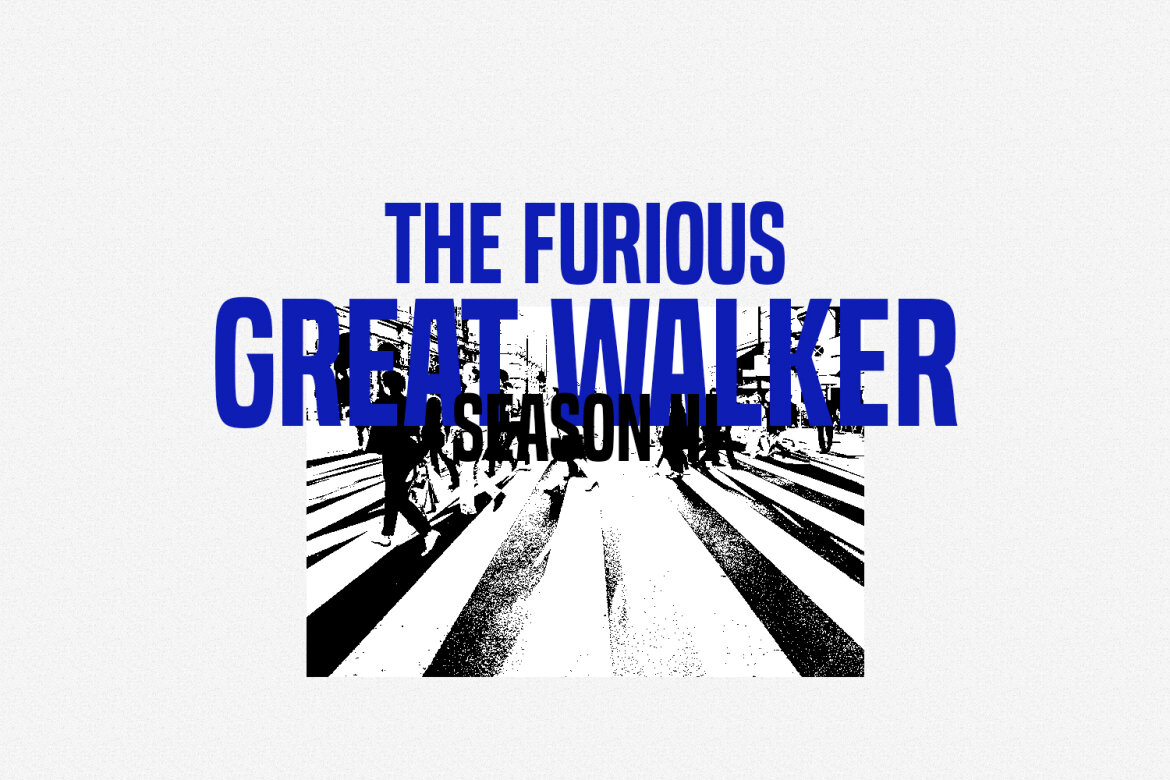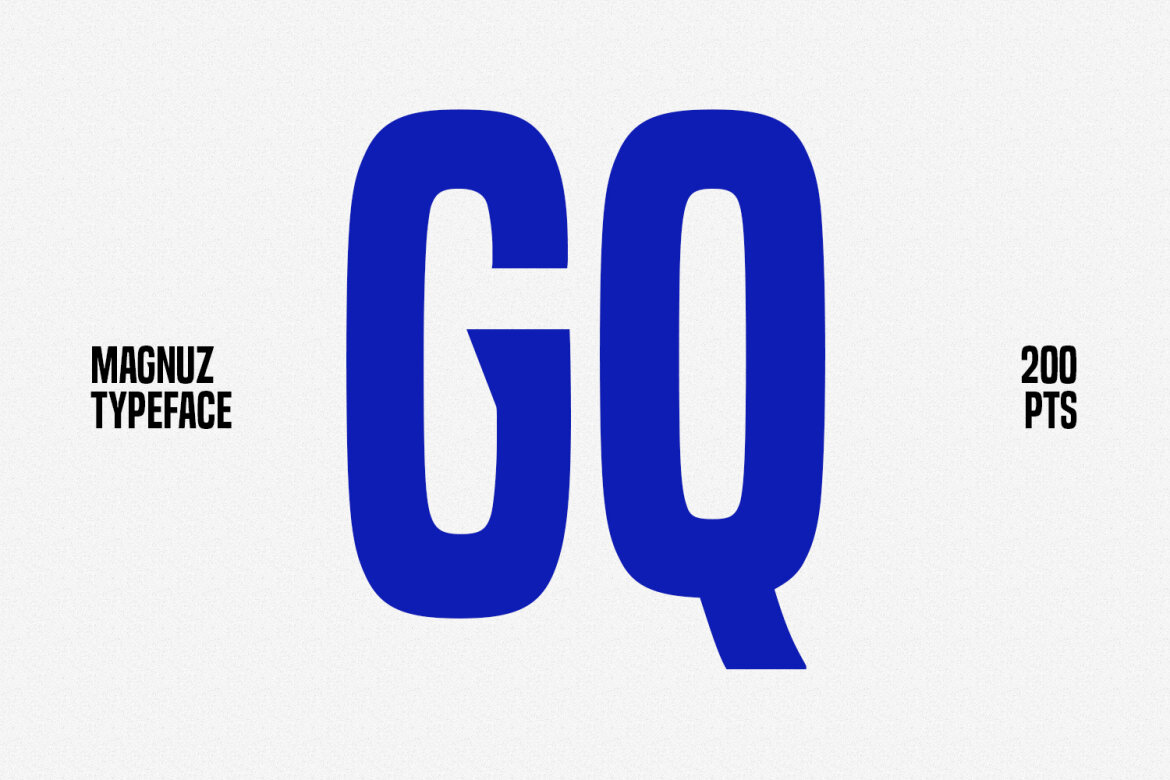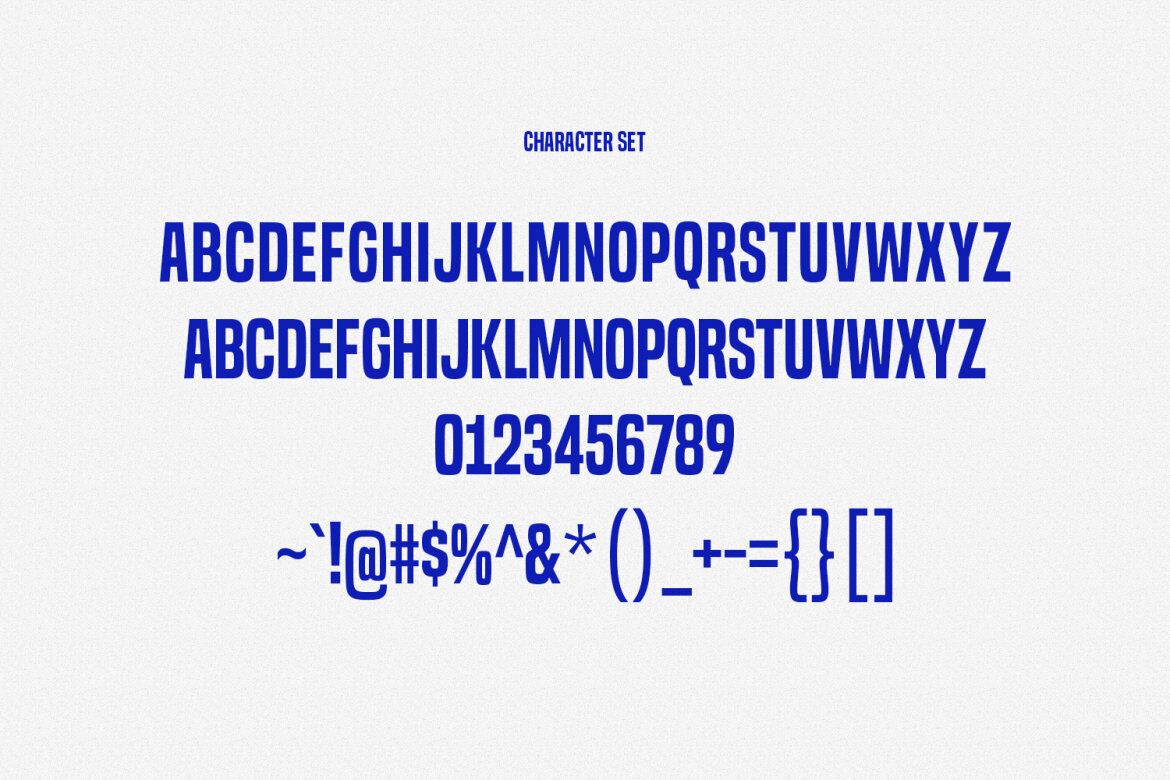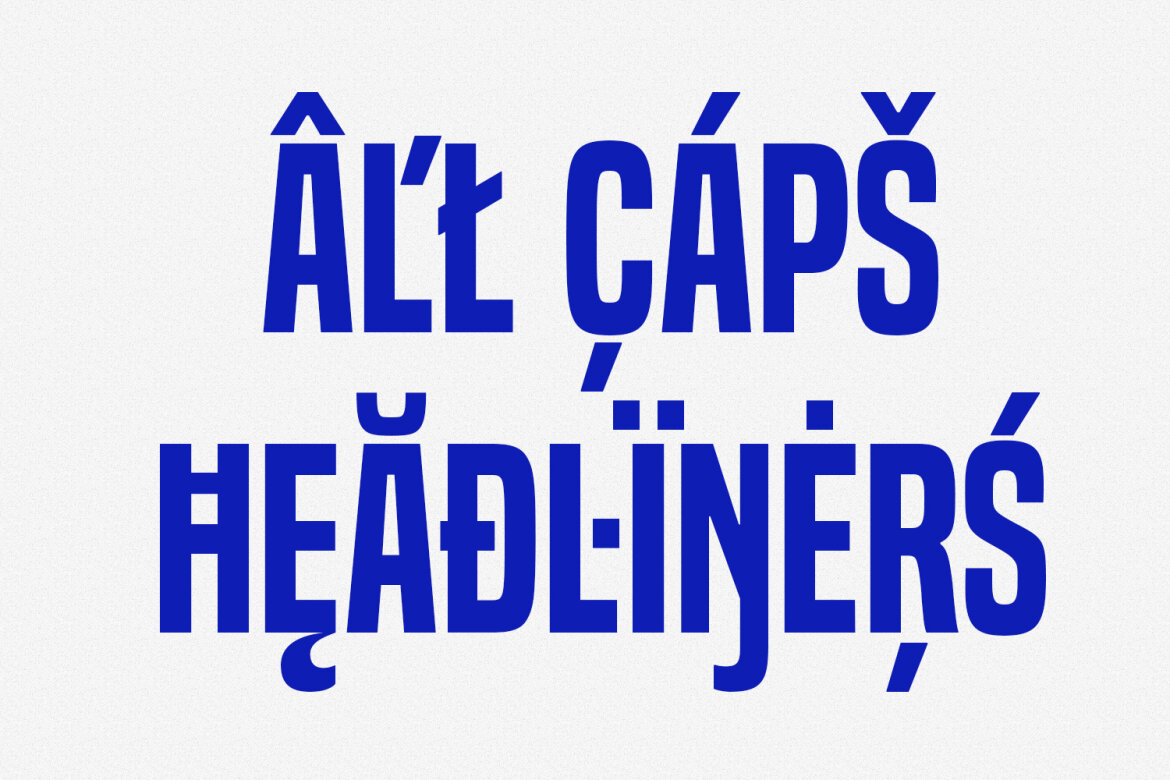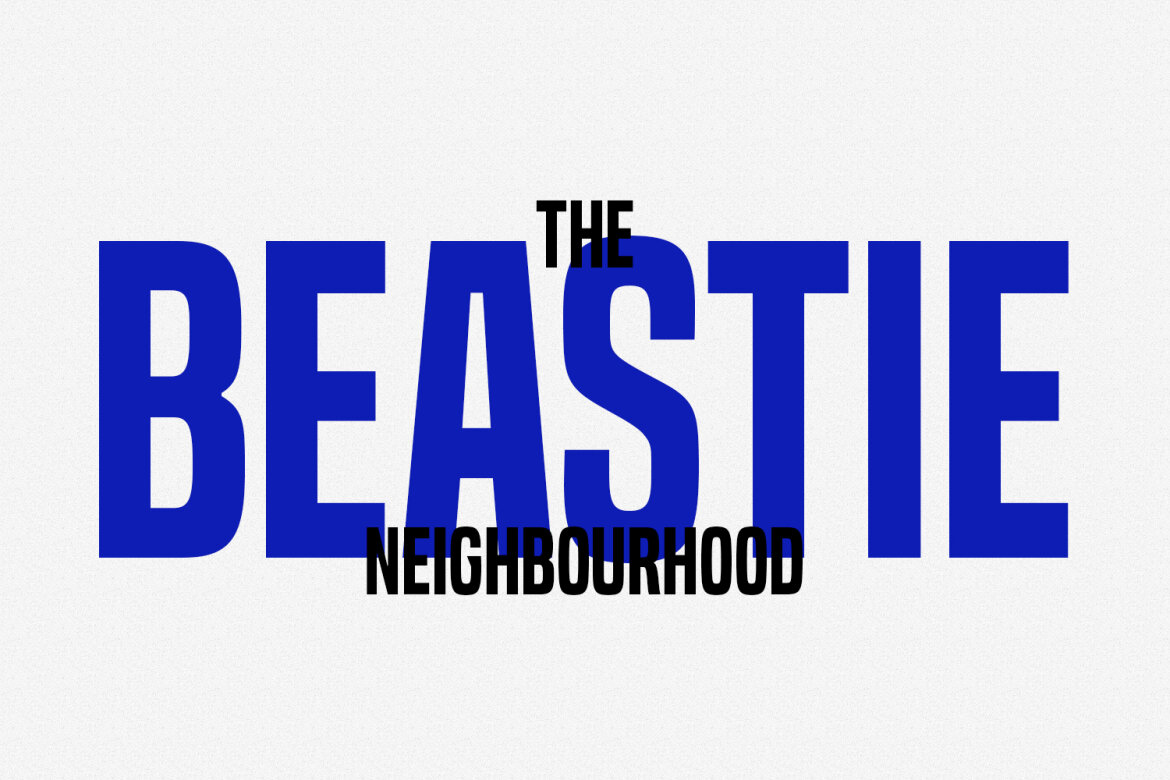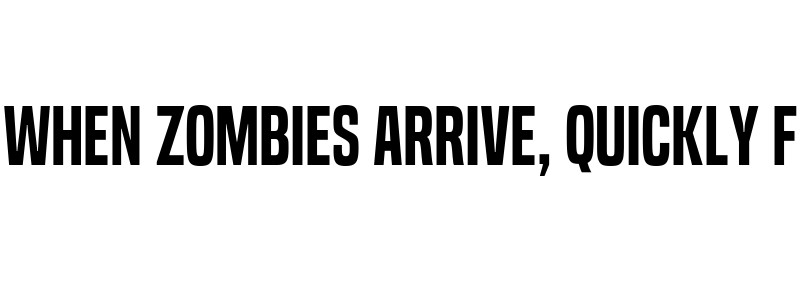
Magnuz Sans FREE Font
Magnuz is a classic condensed sans font. Bold stroke, fun character with a bit of ligatures and alternates. To give you an extra creative work. Magnuz font support multilingual more than 100+ language. This font is good for logo design, Social media, Movie Titles, Books Titles, a short text even a long text letter and good for your secondary text font with script or serif. Make a stunning work with Magnuz font.